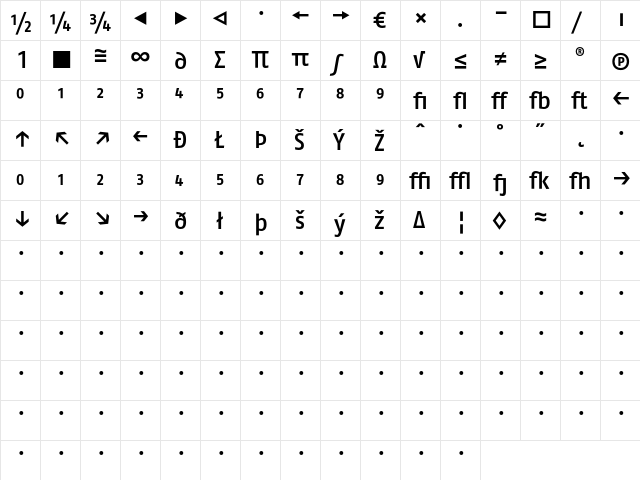
FagoNoMed Regular
Design Context for FagoNoMed Typeface
FagoNoMed takes a measured approach to typography — its balanced proportions and neutral character make it a reliable workhorse for both digital and print work.